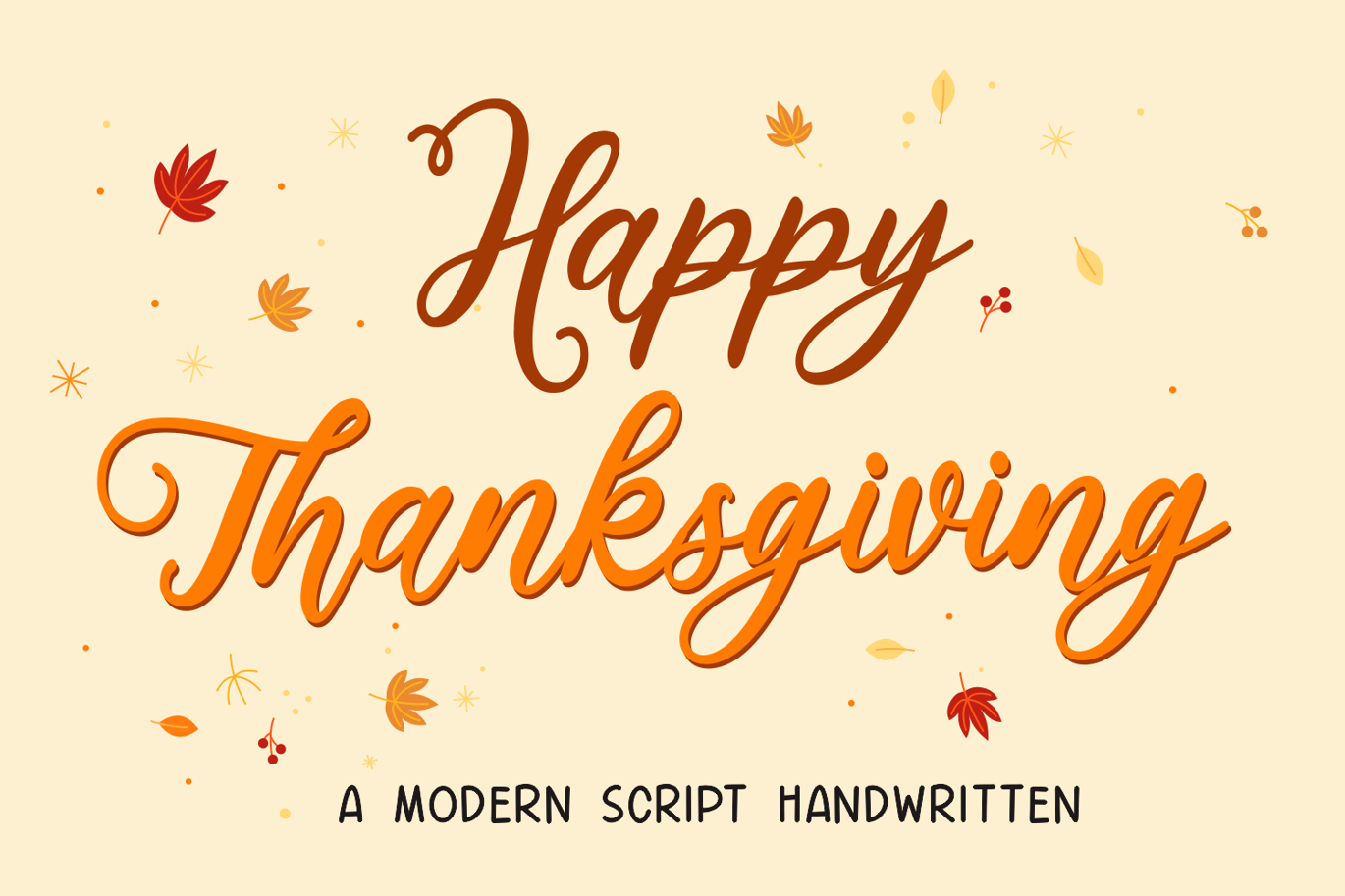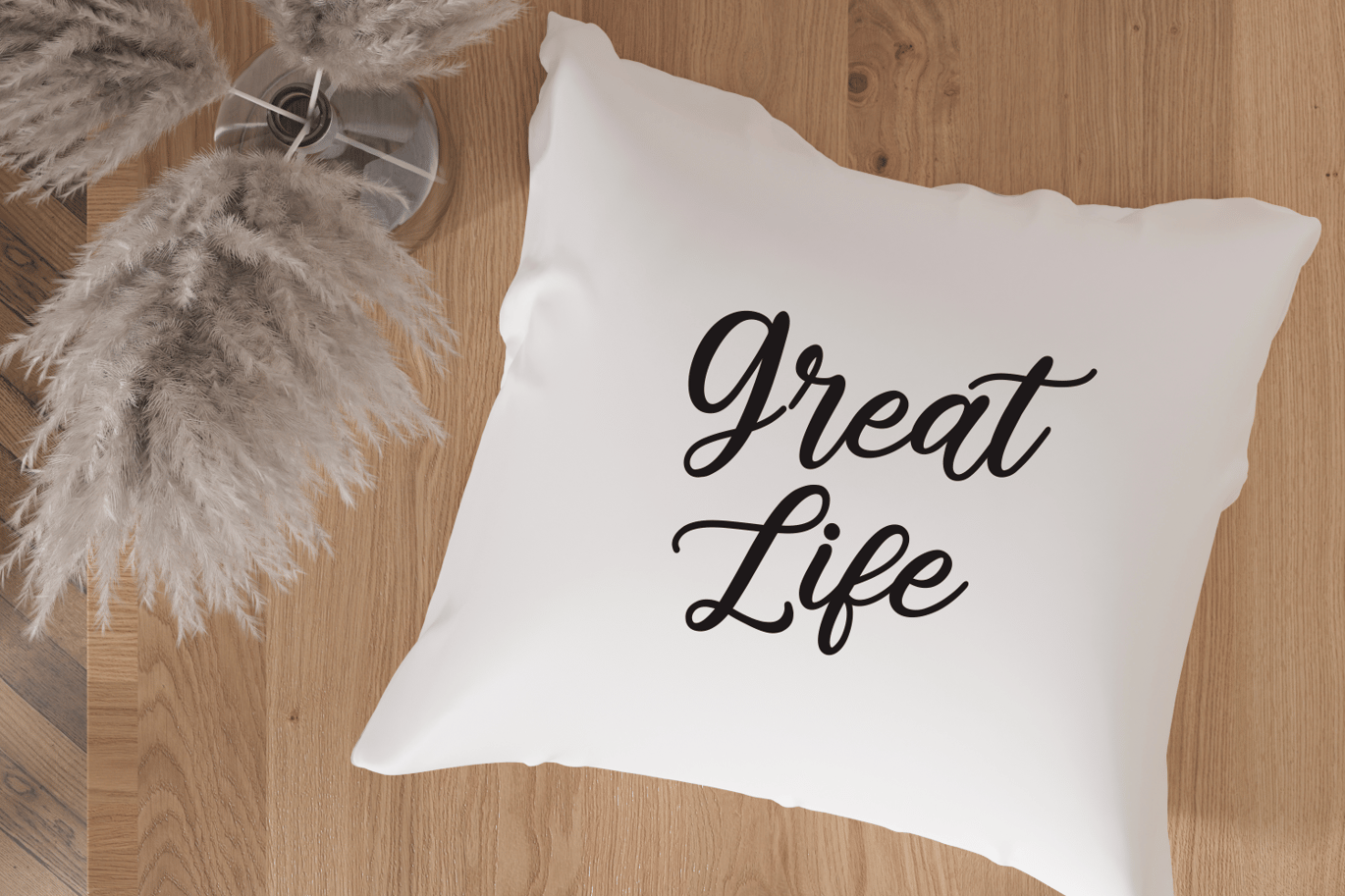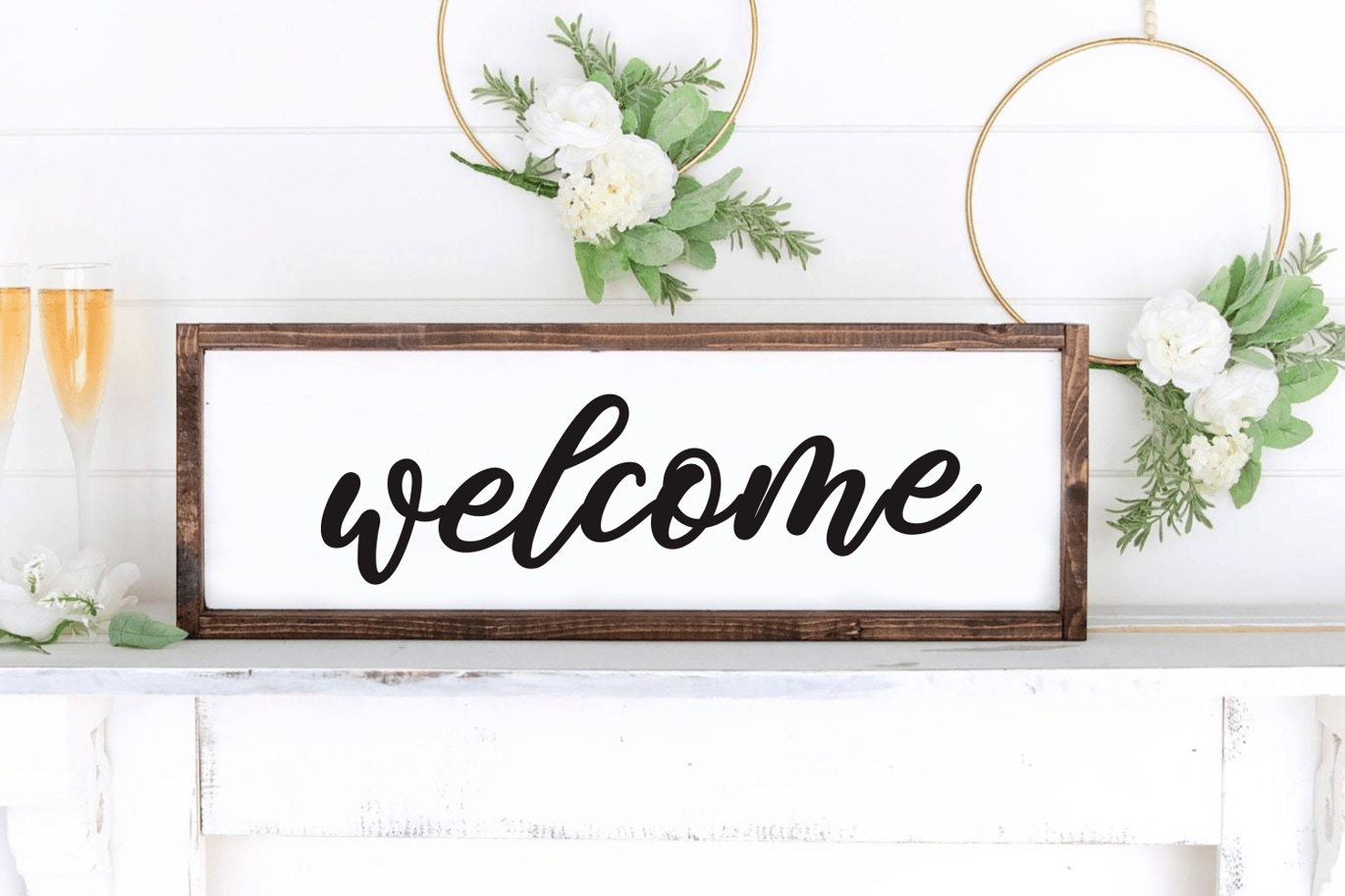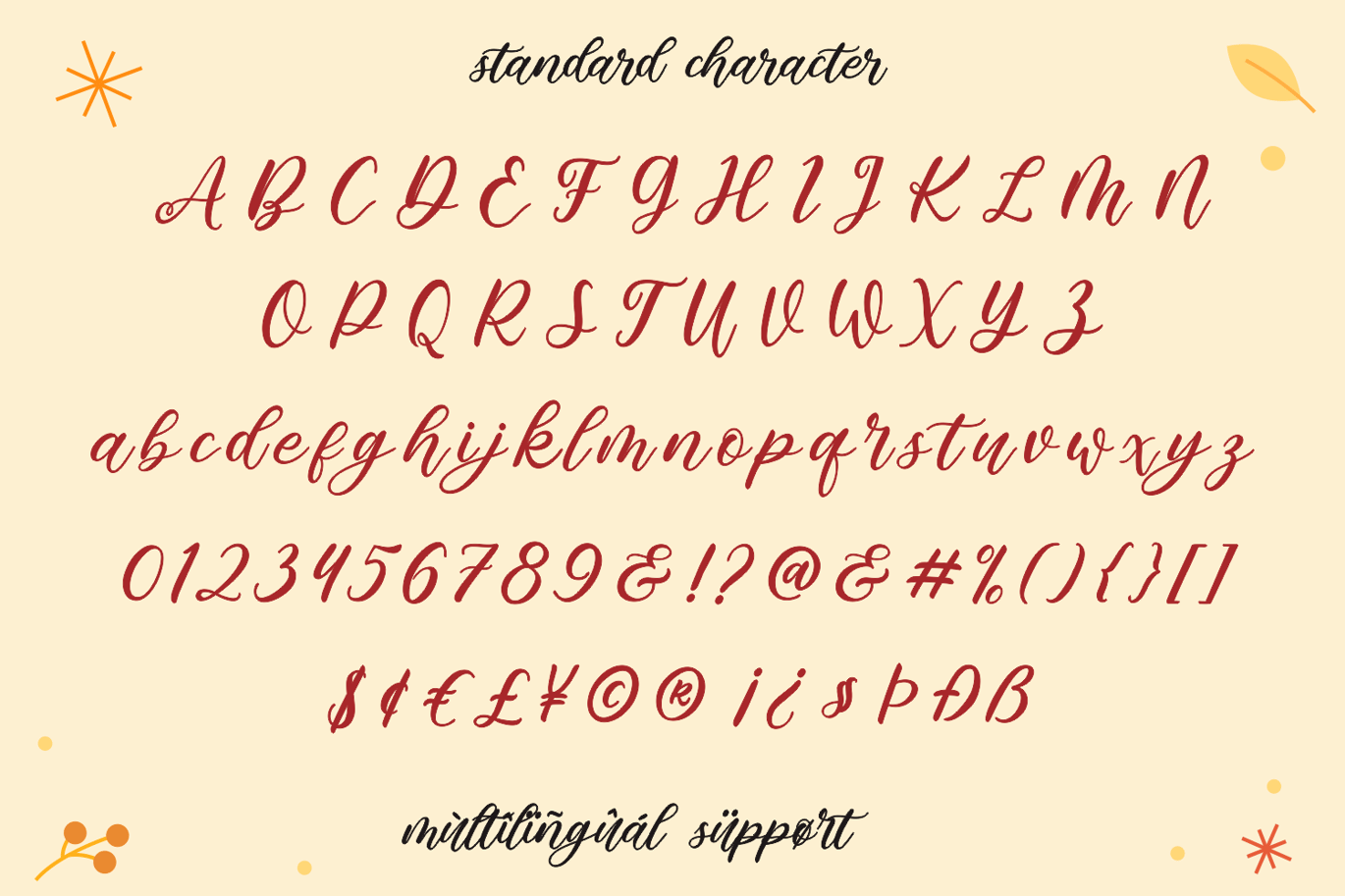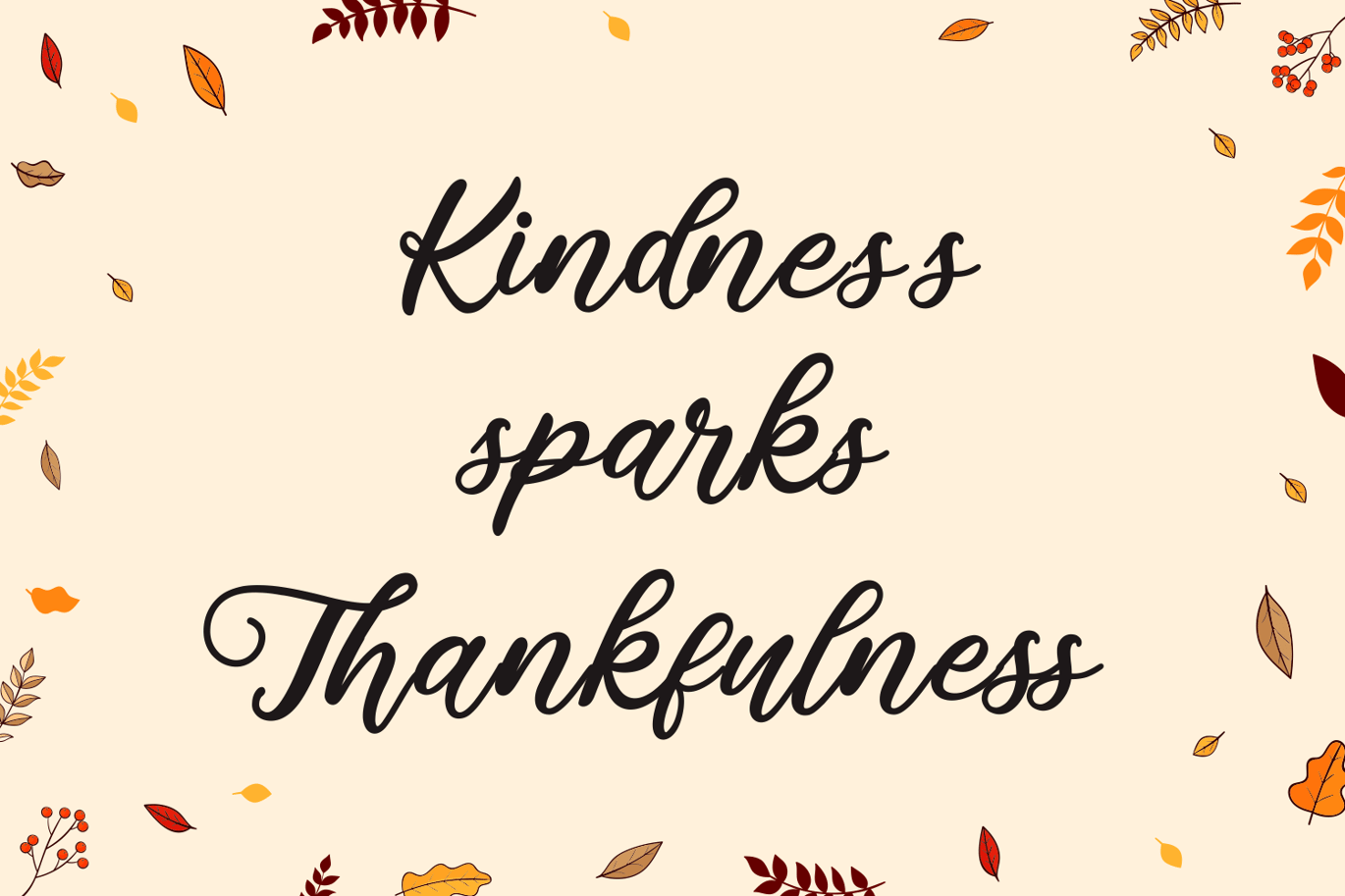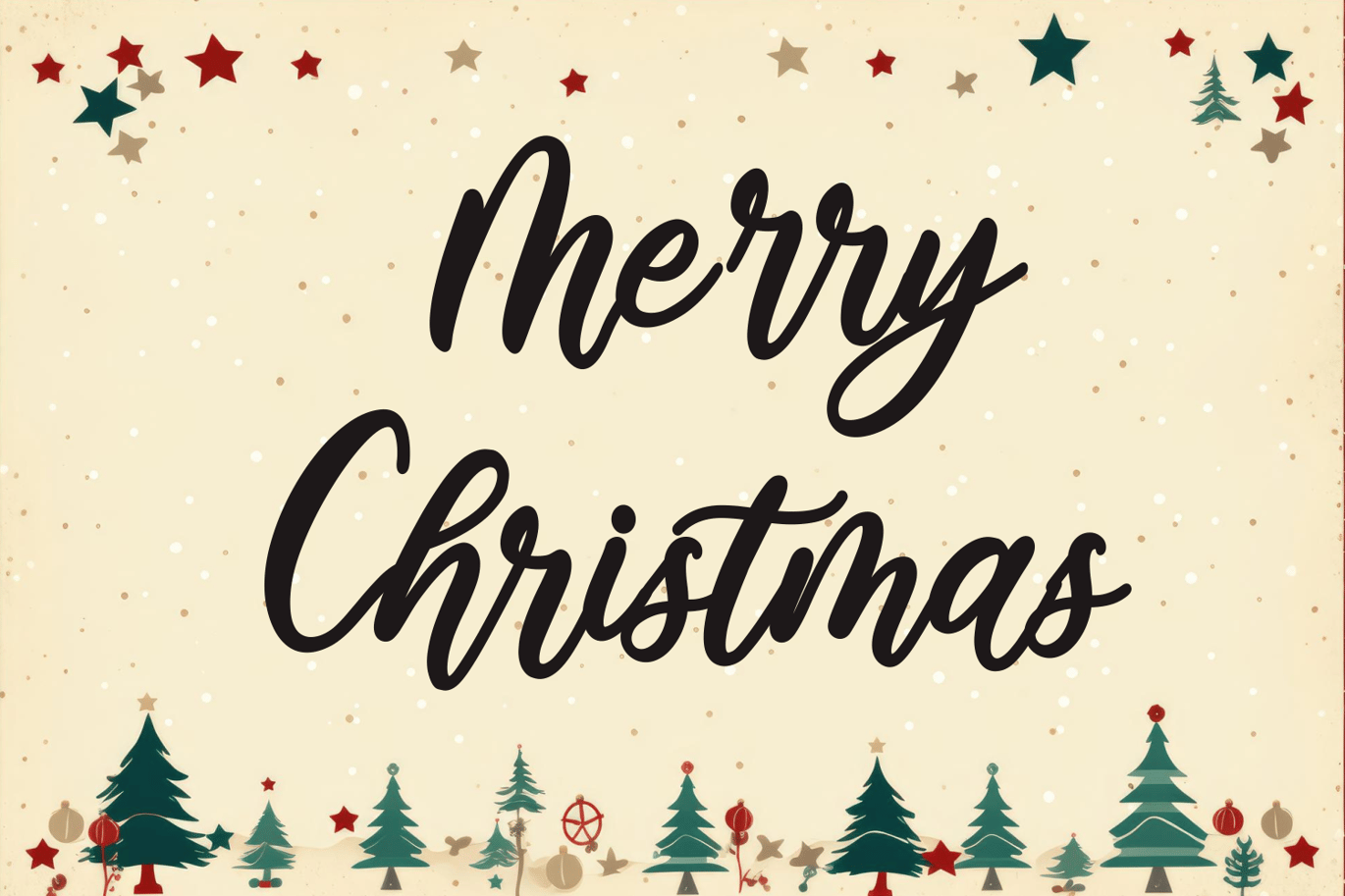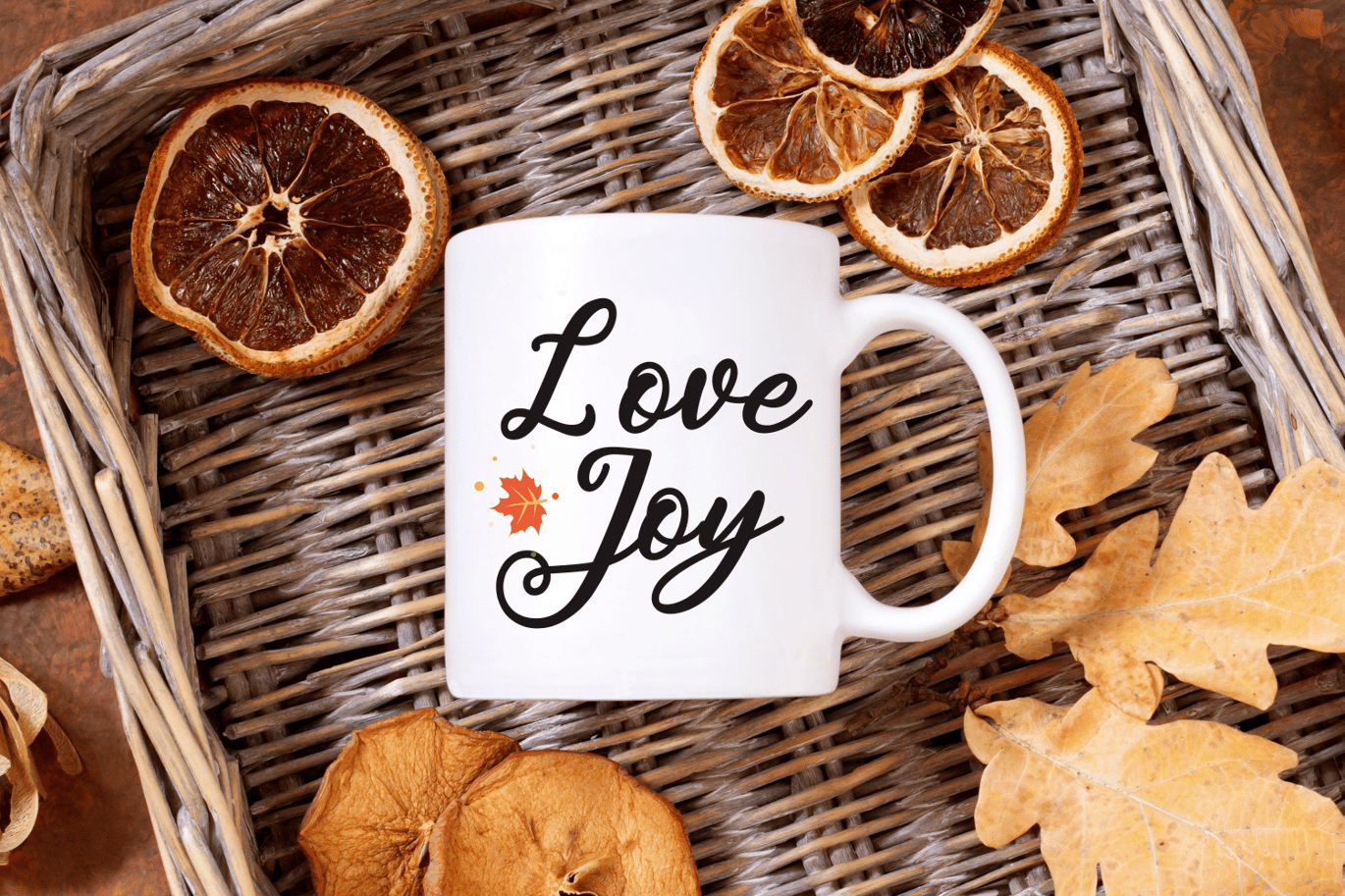
Happy Thanksgiving Font
Happy Thanksgiving is a charming script font that perfectly encapsulates the cozy essence of autumn and the celebratory spirit of various holidays. This cute, handwritten font seamlessly combines the warmth of Thanksgiving, the beauty of fall, the festivity of Christmas and winter, the joy of spring, and the colors of autumn. It effortlessly evokes the holiday cheer and the crafty touch of crafting and embroidery.
The whimsical and inviting strokes of Happy Thanksgiving capture the very essence of these festivities, making it an excellent choice for adding a touch of charm to your creative projects. The font’s delightful letterforms radiate a sense of togetherness, reminiscent of a Thanksgiving feast with loved ones, the magical ambiance of the holiday season, and the blossoms of spring and the colors of autumn.
This versatile font is not just a celebration of Thanksgiving but also a representation of the crafty spirit, perfect for DIY projects and the art of embroidery. Its playful, handwritten style adds a sense of homemade warmth and festivity to any design.